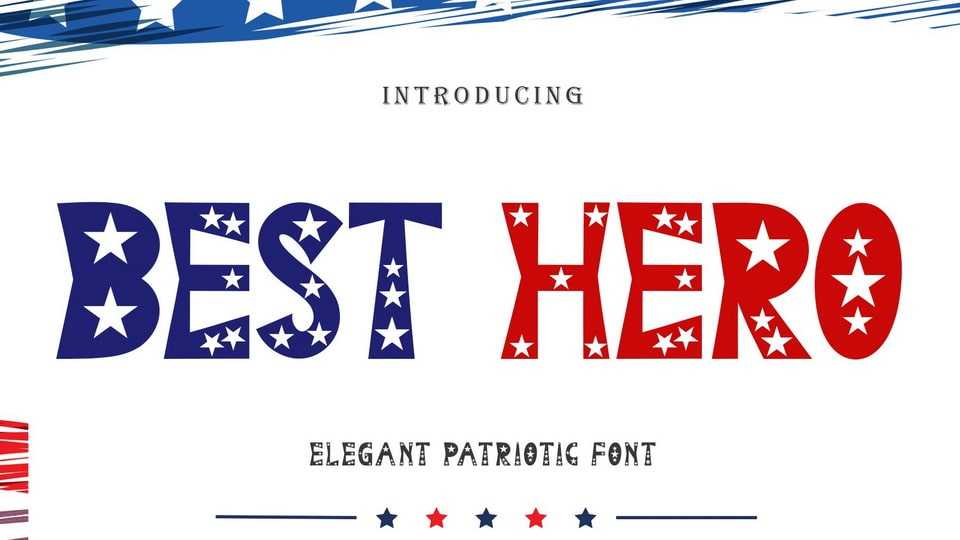
Download Best Hero font, an elegant and unique typeface with star decoration on each letter. Best Hero font is very suitable for the nuances of struggle, 4th of July, teacher, father’s day, graduation, film titles, magazines, book titles, promotions, banners, branding, stickers and others.